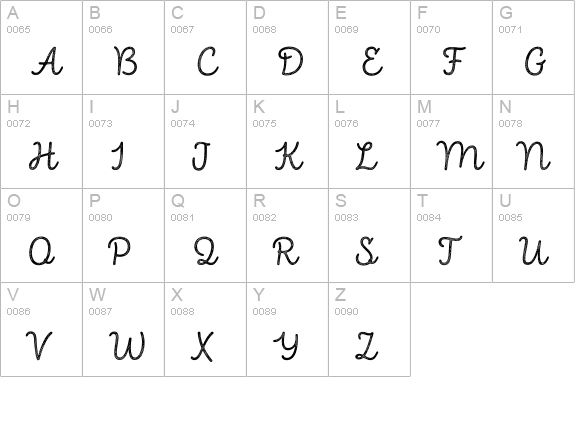
Intro Script R L Base Font Details
The Intro Script R L Base font is a stylish and elegant typeface that is perfect for adding a touch of sophistication to any project. Its graceful curves and flowing lines make it a versatile choice for a wide range of design applications, from branding and advertising to invitations and social media graphics. This font exudes a sense of class and refinement, making it the ideal choice for projects that require a touch of elegance. Best of all, the Intro Script R L Base font is available for free download at FontsMarket.com. This means that you can easily add this beautiful typeface to your font library without breaking the bank. Whether you are a professional designer or a hobbyist looking to elevate your projects, this font is sure to impress with its timeless appeal and effortless charm. Download the Intro Script R L Base font today and start creating stunning designs that stand out from the crowd.